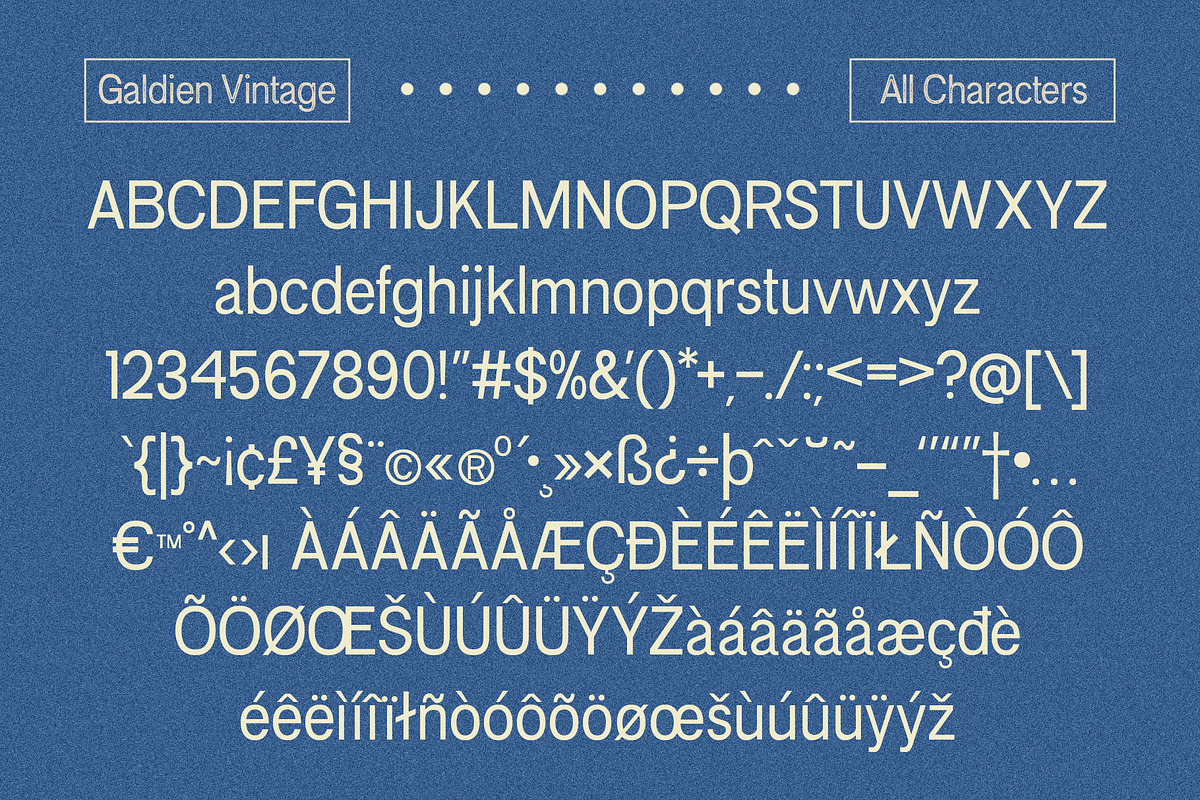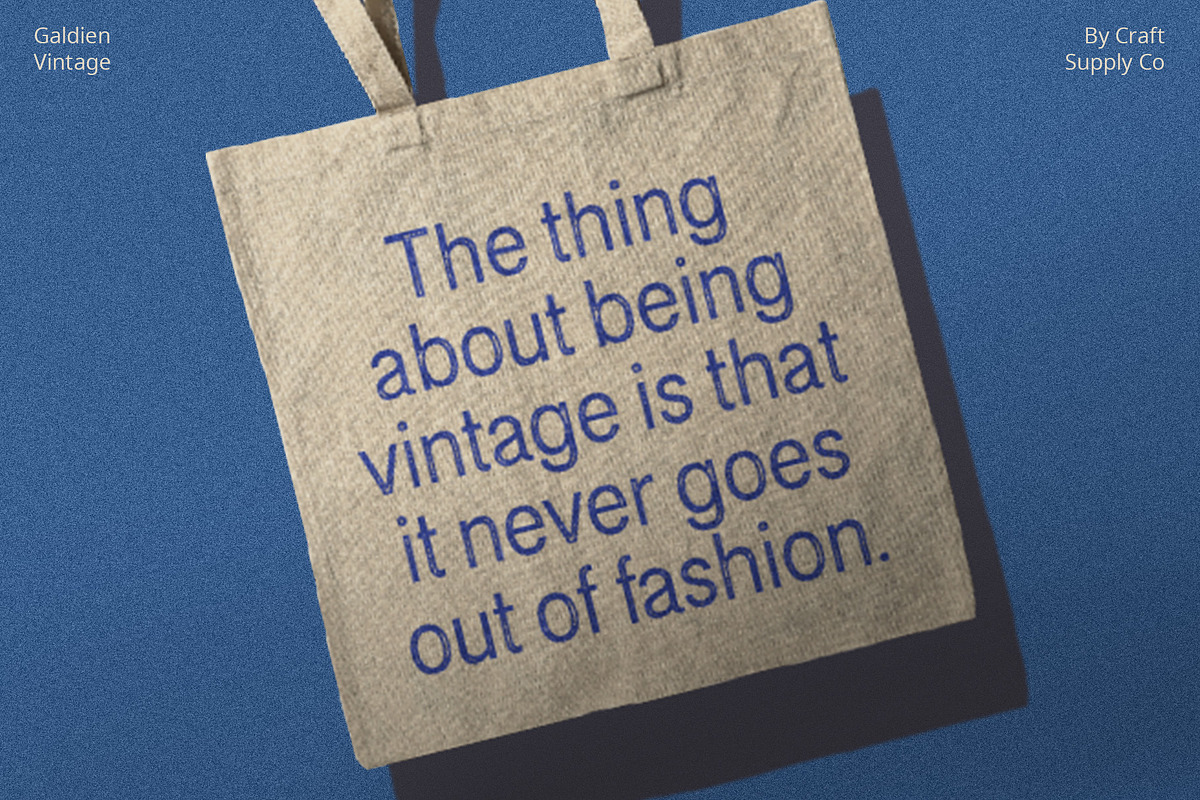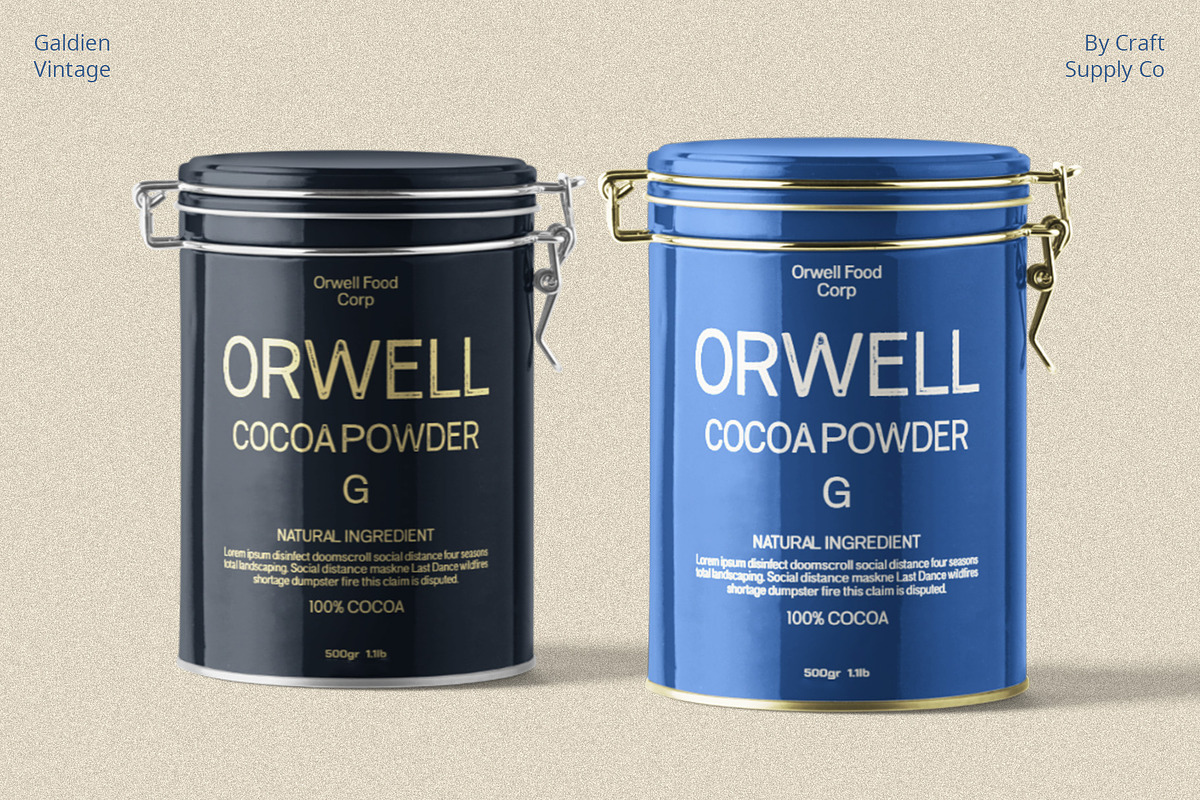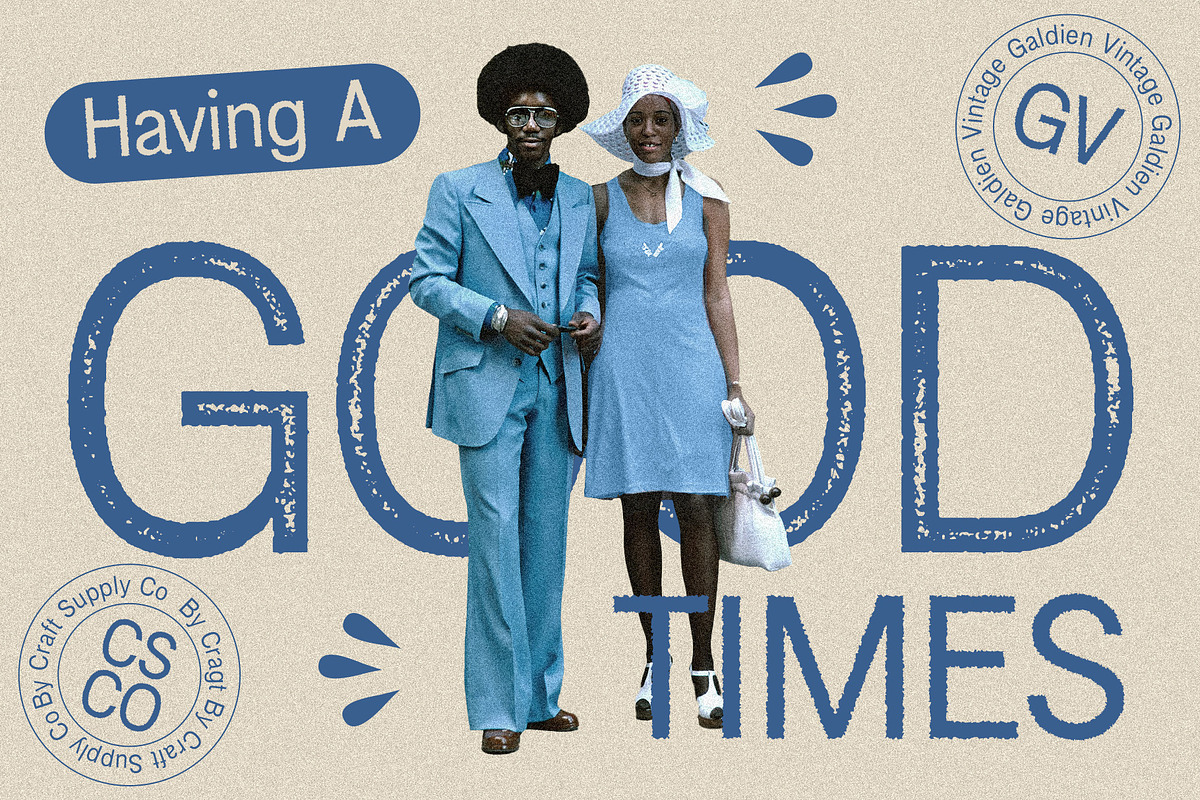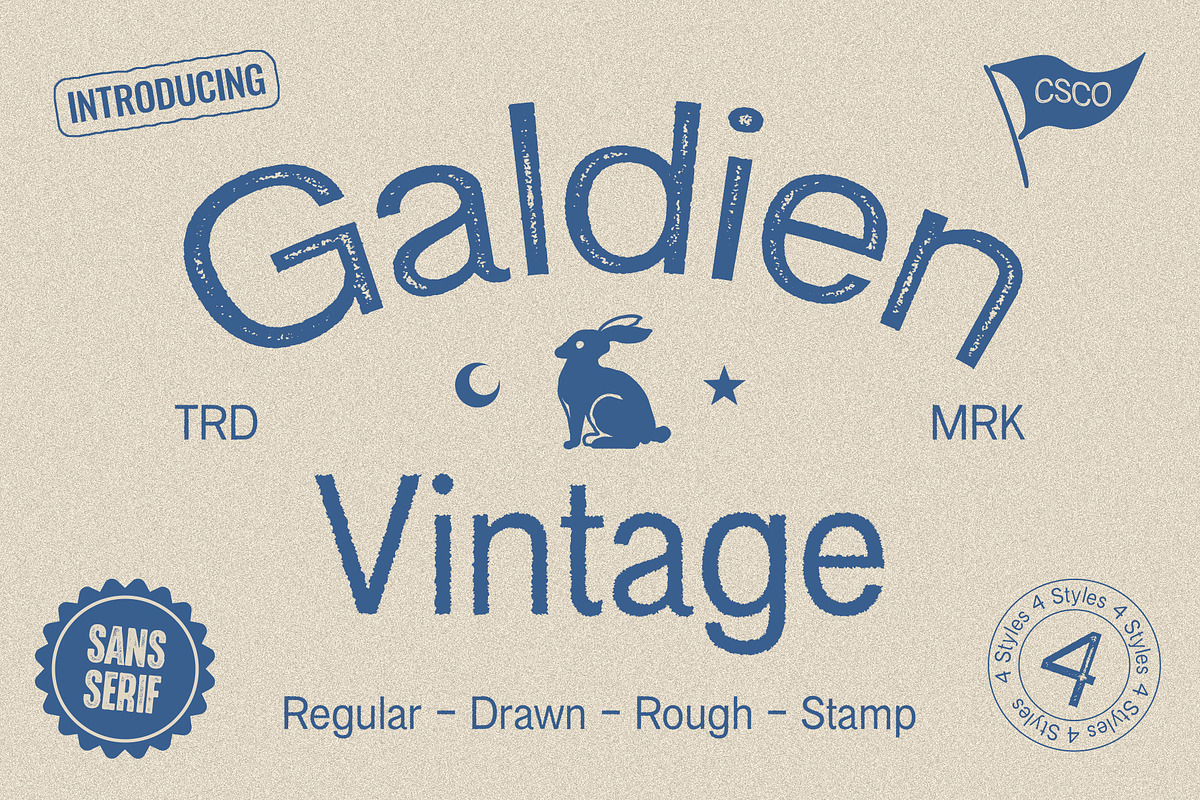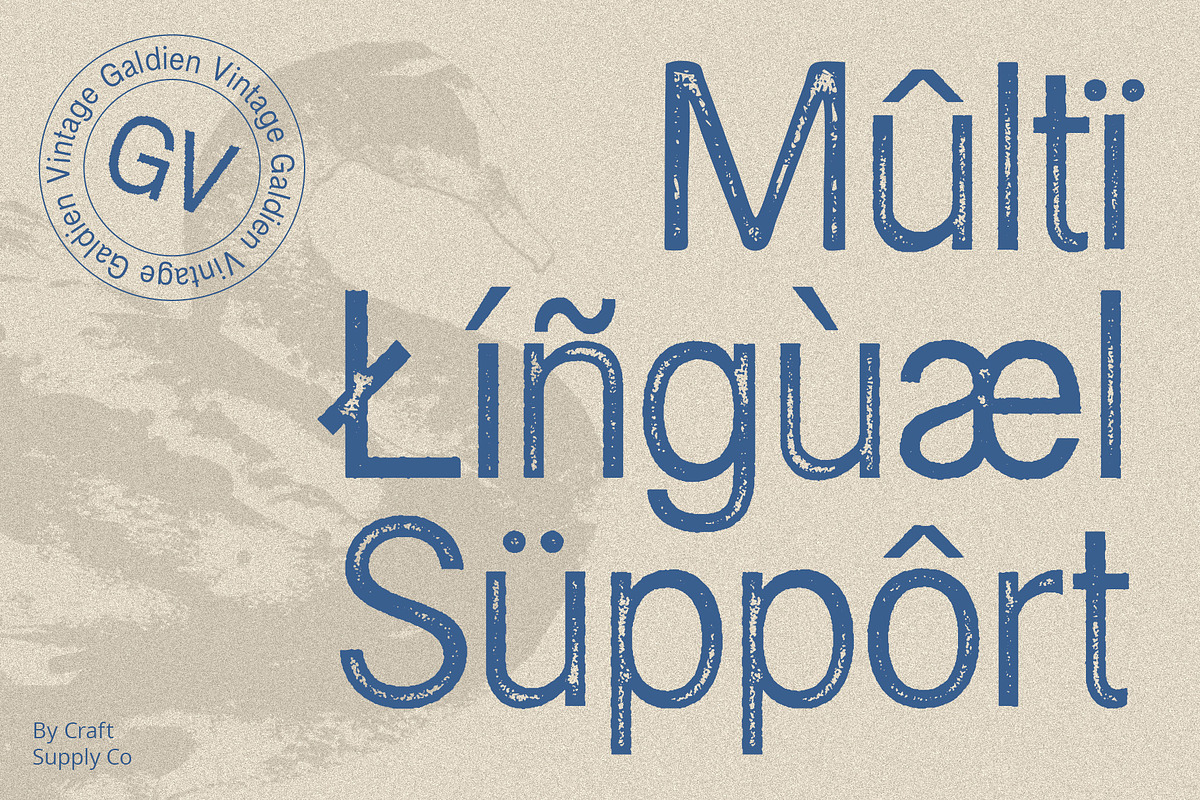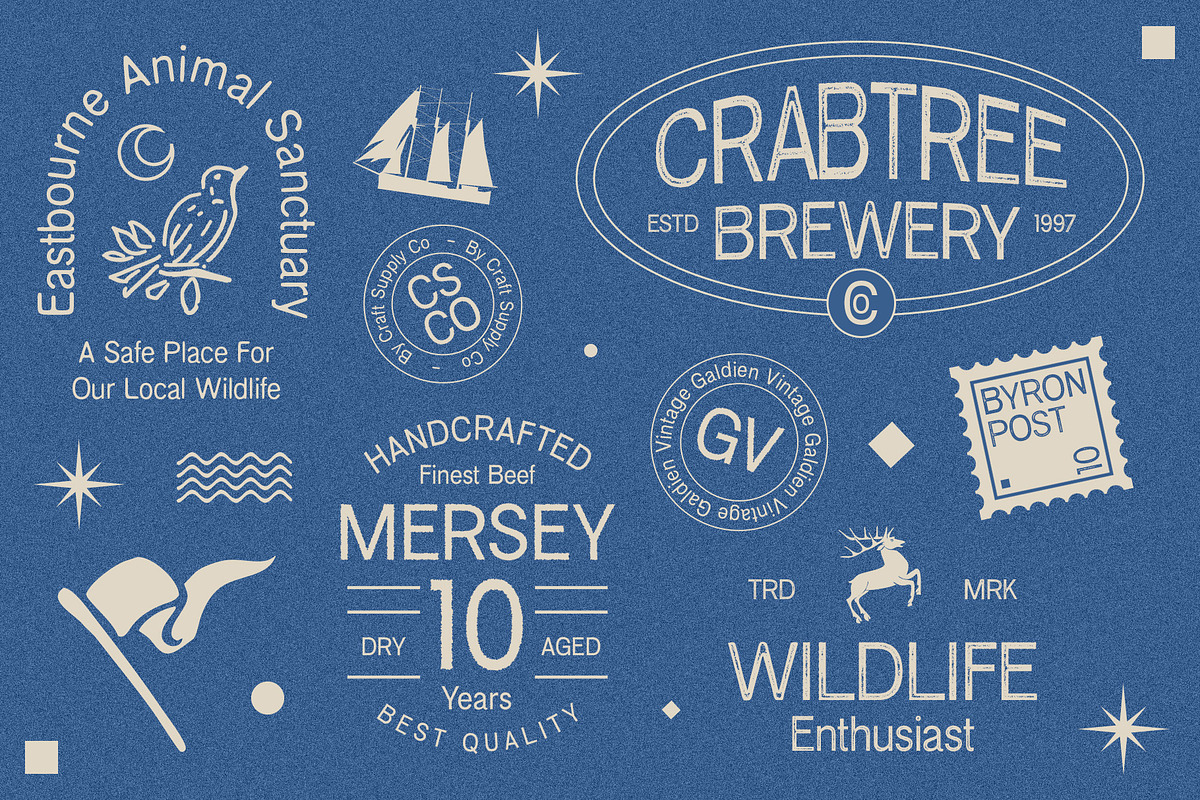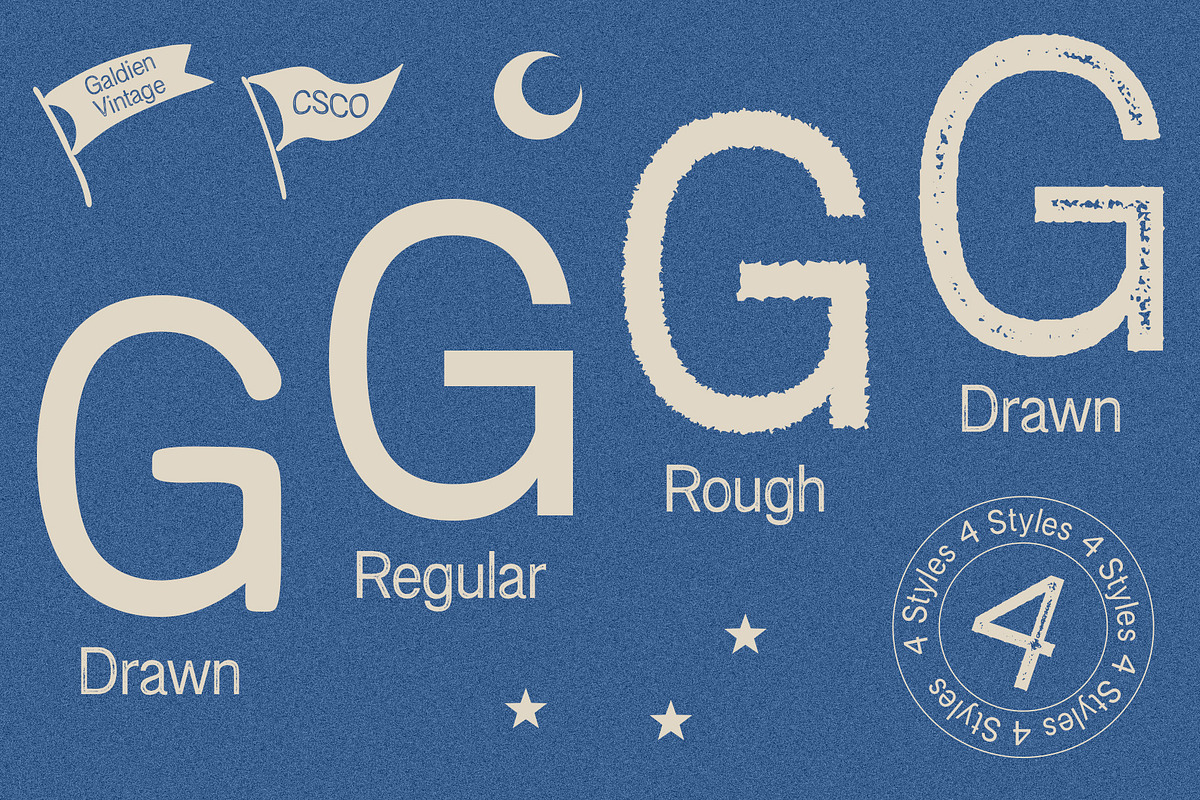
Galdien Vintage
Galdien Vintage – Timeless Appeal in Every Stroke
Vintage Elegance Galdien Vintage, a sans serif font exuding vintage charm, seamlessly combines the appeal of a bygone era with modern design sensibilities.
Hand-Drawn Precision Crafted with hand-drawn precision, each character of Galdien Vintage carries a unique, artisanal touch, adding a layer of authenticity to your projects.
Stamp of Distinction The font’s stamp effect enhances its distinctive character, providing a sense of individuality that sets your designs apart from the ordinary.
Rough Aesthetics Embrace the rough aesthetics of Galdien Vintage, where every stroke tells a story of rugged elegance, making it a versatile choice for diverse creative endeavors.
Conclusion In conclusion, Galdien Vintage transcends the boundaries of time, offering a font that marries vintage sophistication with contemporary design elements. This font ensures that your projects carry a stamp of timeless appeal and handcrafted distinction.
- Galdien Regular
- Galdien Drawn
- Galdien Rough
- Galdien Stamp